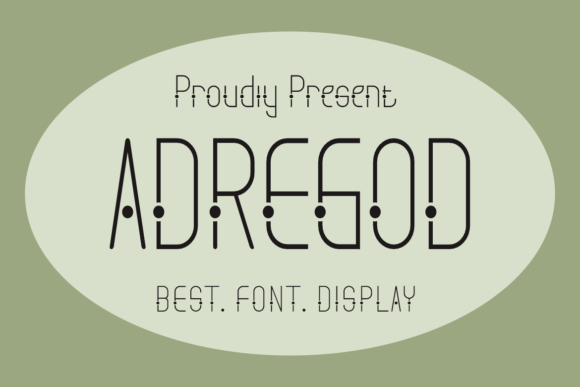
The Ultimate Guide to Adregod Font: Elevate Your Designs with this Stunning Sans Serif
Have you ever been in the middle of a design project, and suddenly, you’re stuck on finding the perfect font? I recall a recent experience where I was working on a branding project for a trendy new cafe, and I just couldn’t find a font that captured the right vibe. That’s when I stumbled upon Adregod Font, and let me tell you, it was love at first sight! 😍
Adregod Font: The First Impression
Adregod is a cool and unique sans serif display font that has quickly become a favorite in my design toolkit. Its modern and edgy look makes it perfect for creative projects that require a bit of flair. Add it confidently to your designs, and you will be impressed by the generated outcome! ✨
• ✅ Unique and modern sans serif design
• ✨ Perfect for display and headline text
• ✅ Highly legible, even at smaller sizes
• 💥 Great for creating eye-catching titles and headings
While Adregod Font is an excellent choice for many projects, there are a few things to keep in mind: 🤔
• ⚠️ May not be the best choice for body text or long paragraphs
• ⚠️ Some characters may not work well in all contexts (e.g., @ symbol)
The Designer Inspiration Behind Adregod Font
While the true story behind Adregod Font remains a mystery, it’s easy to imagine that the designer was inspired by the world of modern art and architecture. The font’s sleek lines and geometric shapes evoke the feeling of a cutting-edge design studio. 💡
Q: What type of projects is Adregod Font best suited for?
A: Adregod Font is perfect for creative projects that require a modern and edgy look, such as branding, advertising, and digital designs.
Q: Does Adregod Font support OpenType features?
A: Yes, Adregod Font supports OpenType features, such as ligatures, stylistic alternates, and glyphs.
Q: Can I use Adregod Font for body text or long paragraphs?
A: While Adregod Font is highly legible, it may not be the best choice for body text or long paragraphs. It’s better suited for display and headline text.